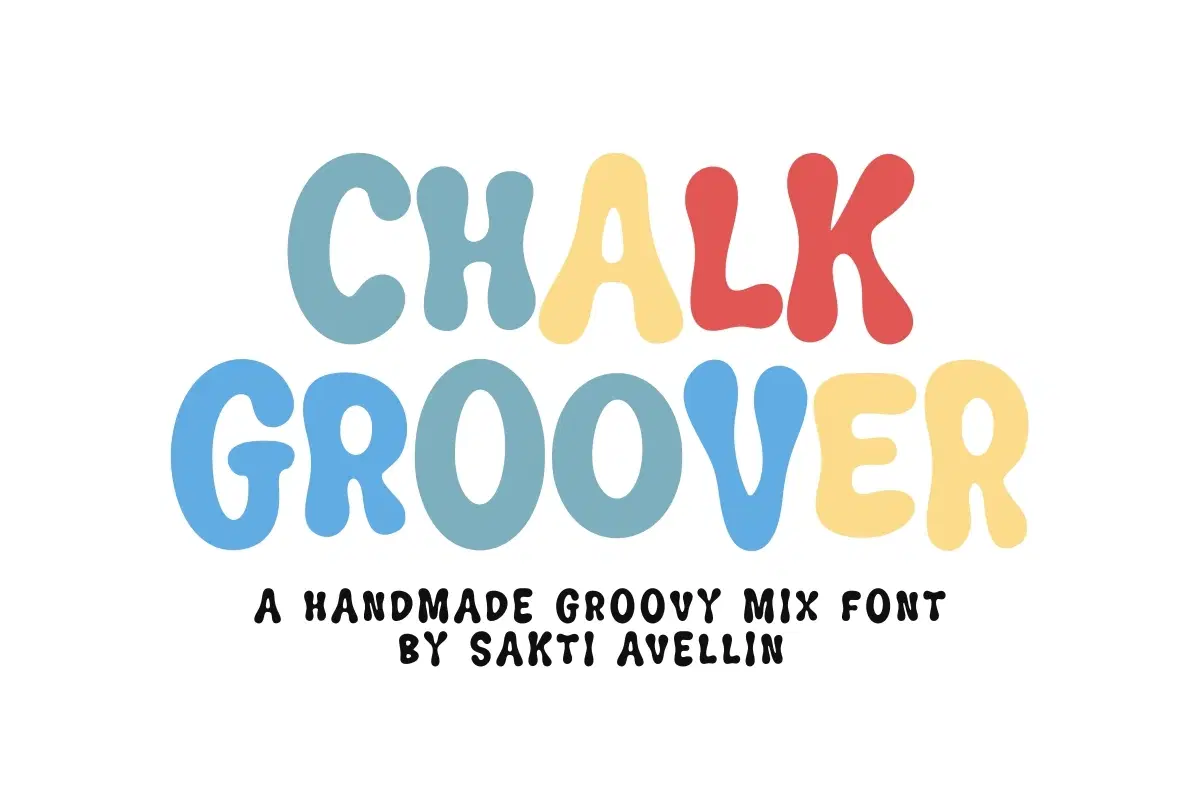
Chalk Groover is a soulful, playful, and high-impact handmade groovy mix font designed to bring a nostalgic yet modern energy to your creative projects. This bubbly display font features soft, rounded letterforms with a rhythmic, hand-drawn bounce, making it essential for retro branding, school-themed designs, kids' apparel, vibrant posters, and eye-catching social media graphics. Its thick, friendly characters ensure it stands out as a powerful display typeface for headlines and packaging, appealing to a modern audience that loves nostalgic funk and handcrafted aesthetics. Bring a touch of joyful, retro charm to your work with the unique style of Chalk Groover!